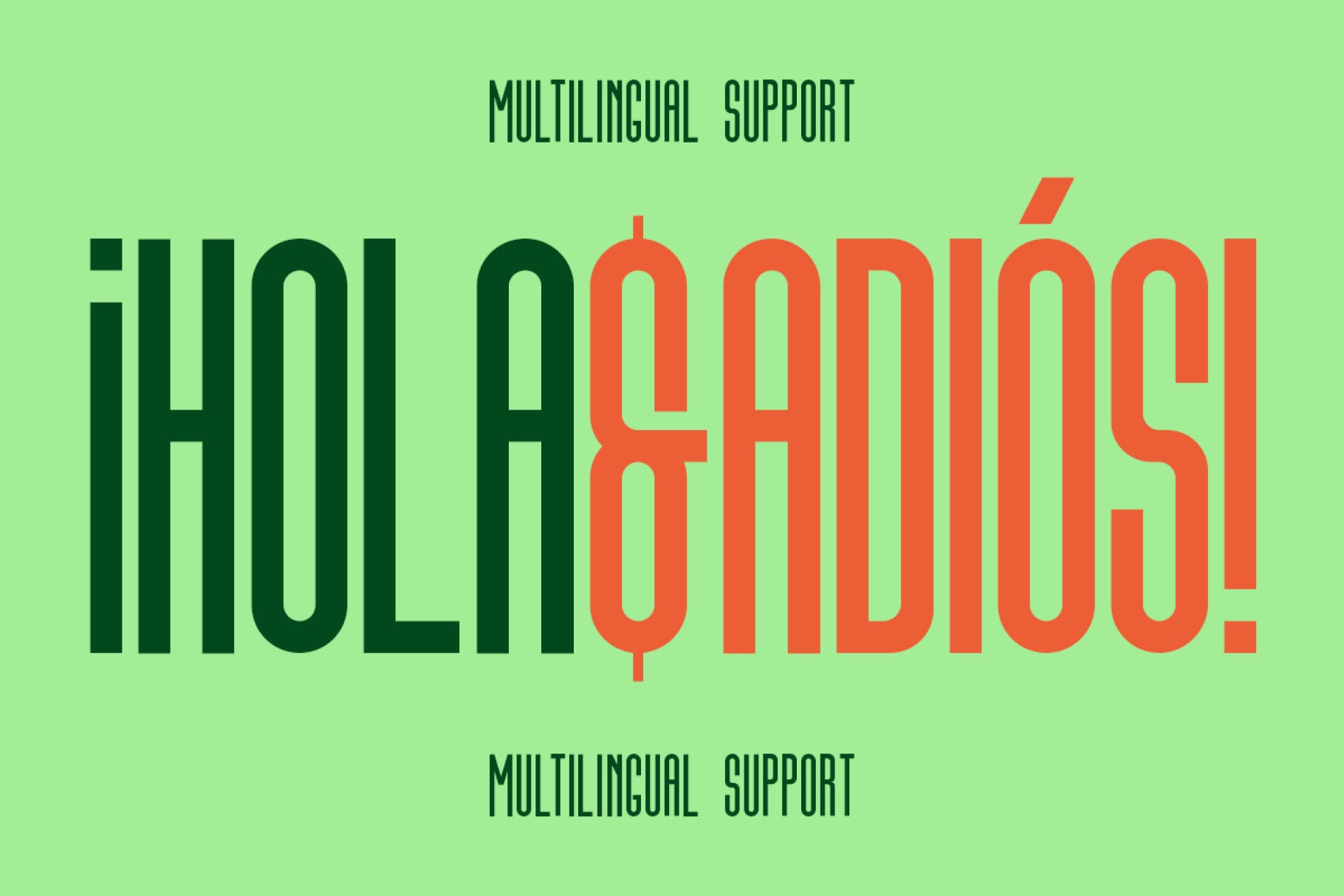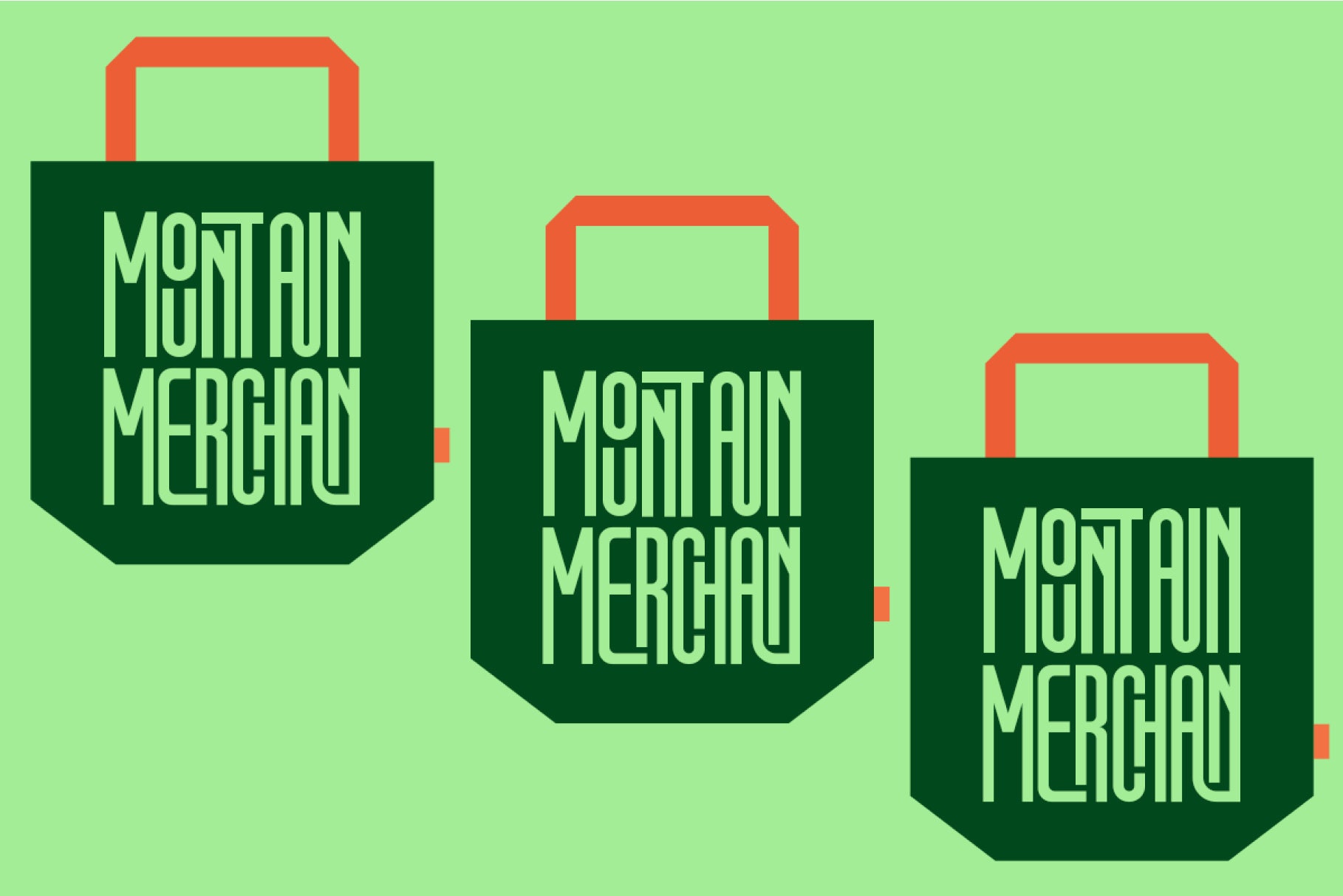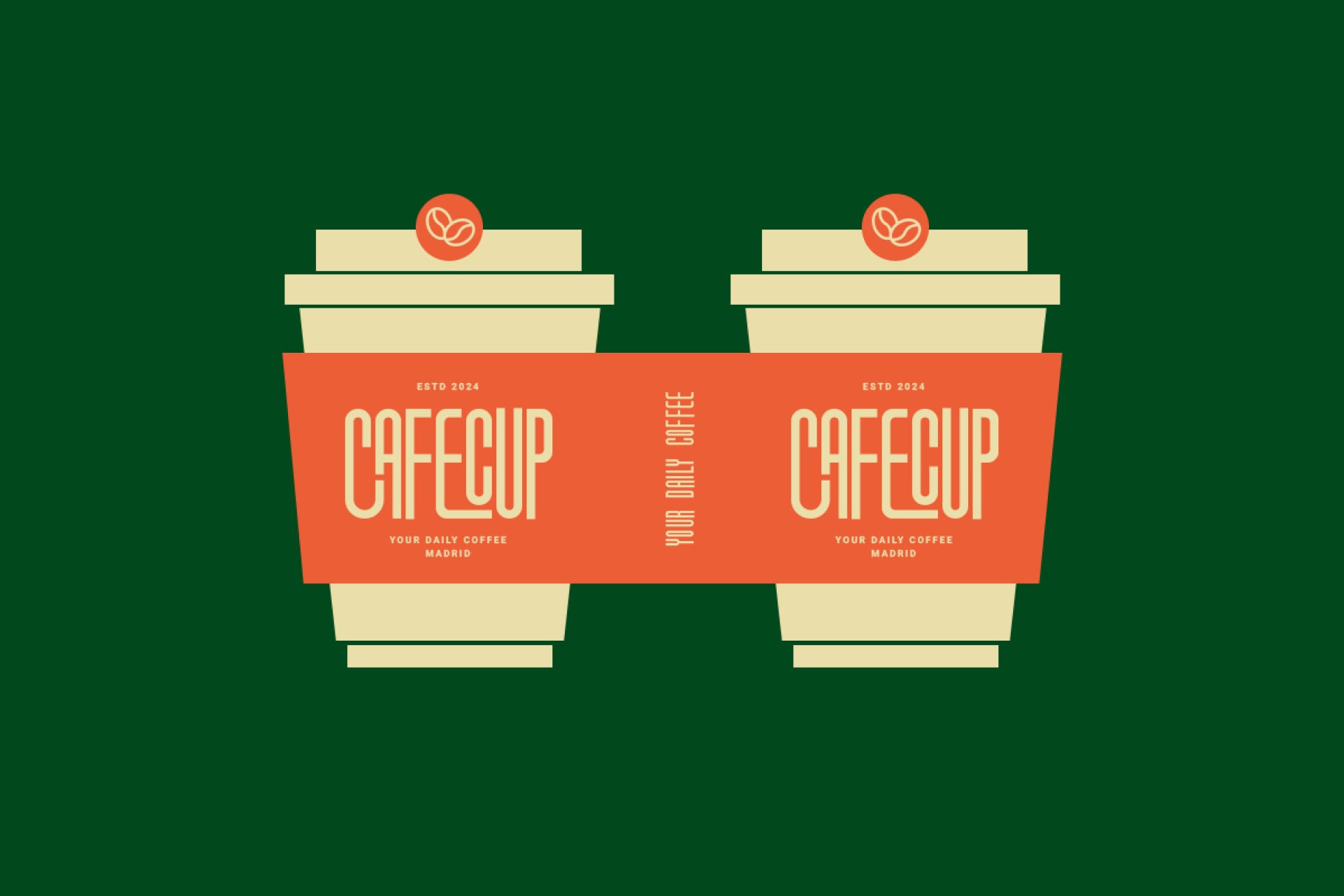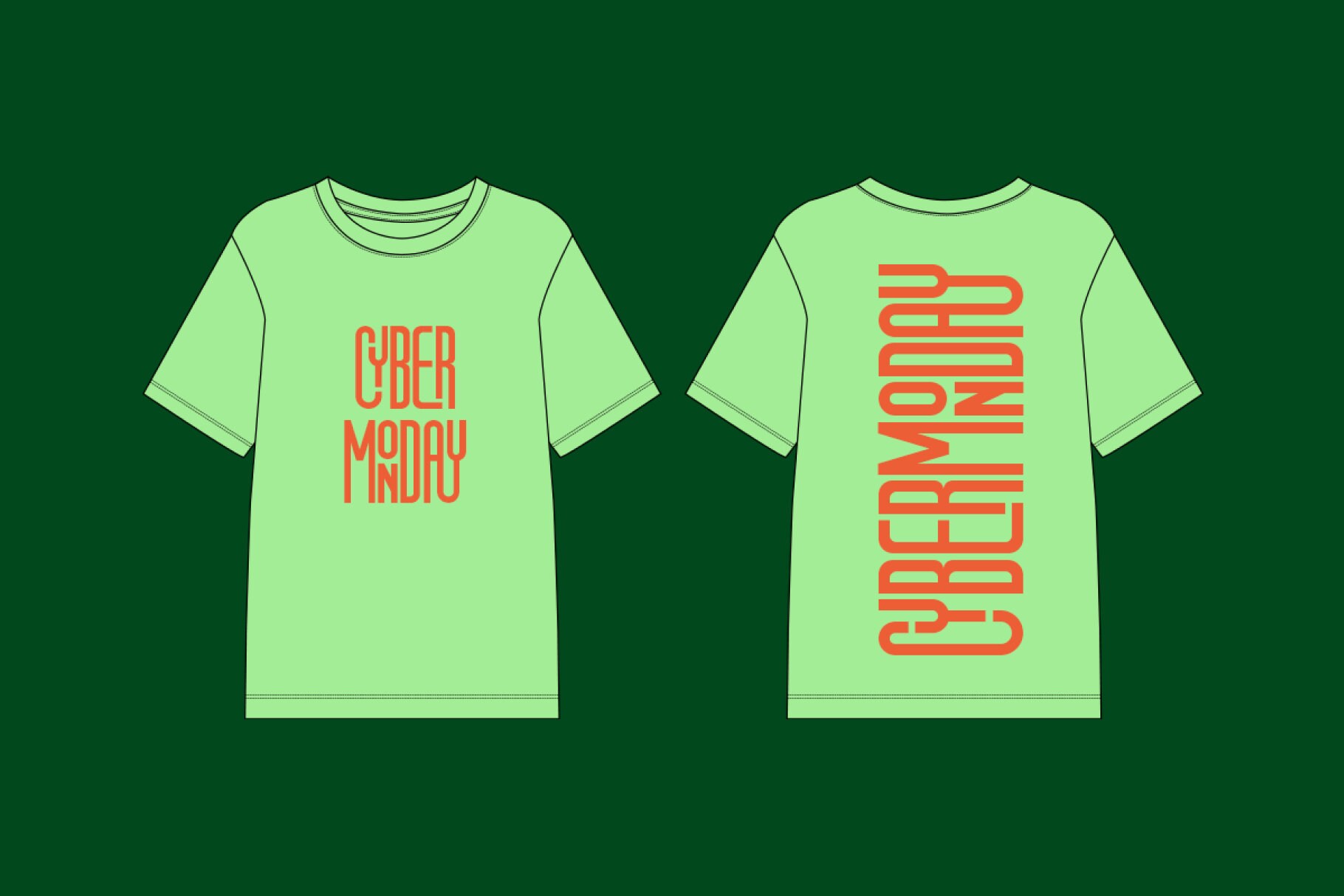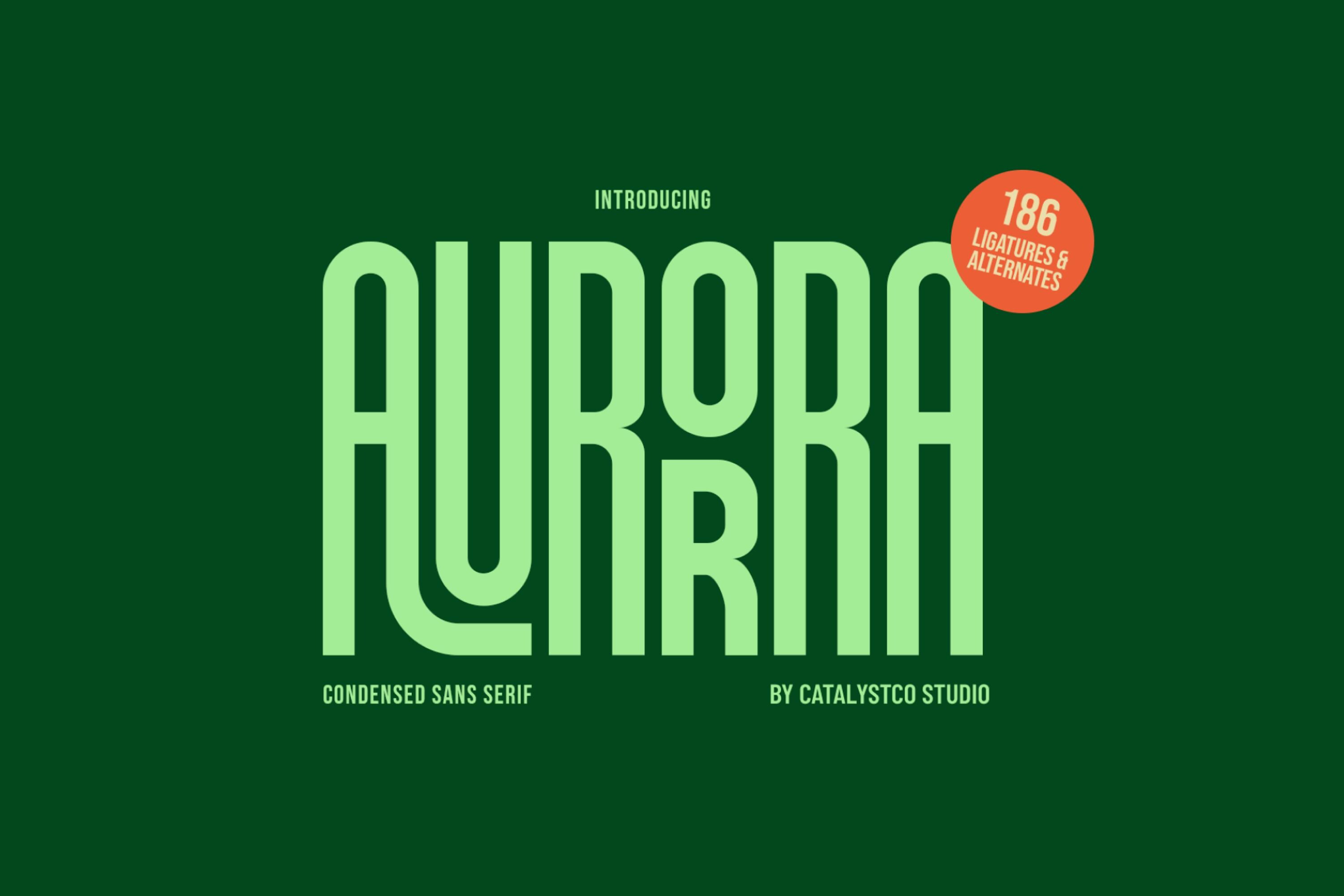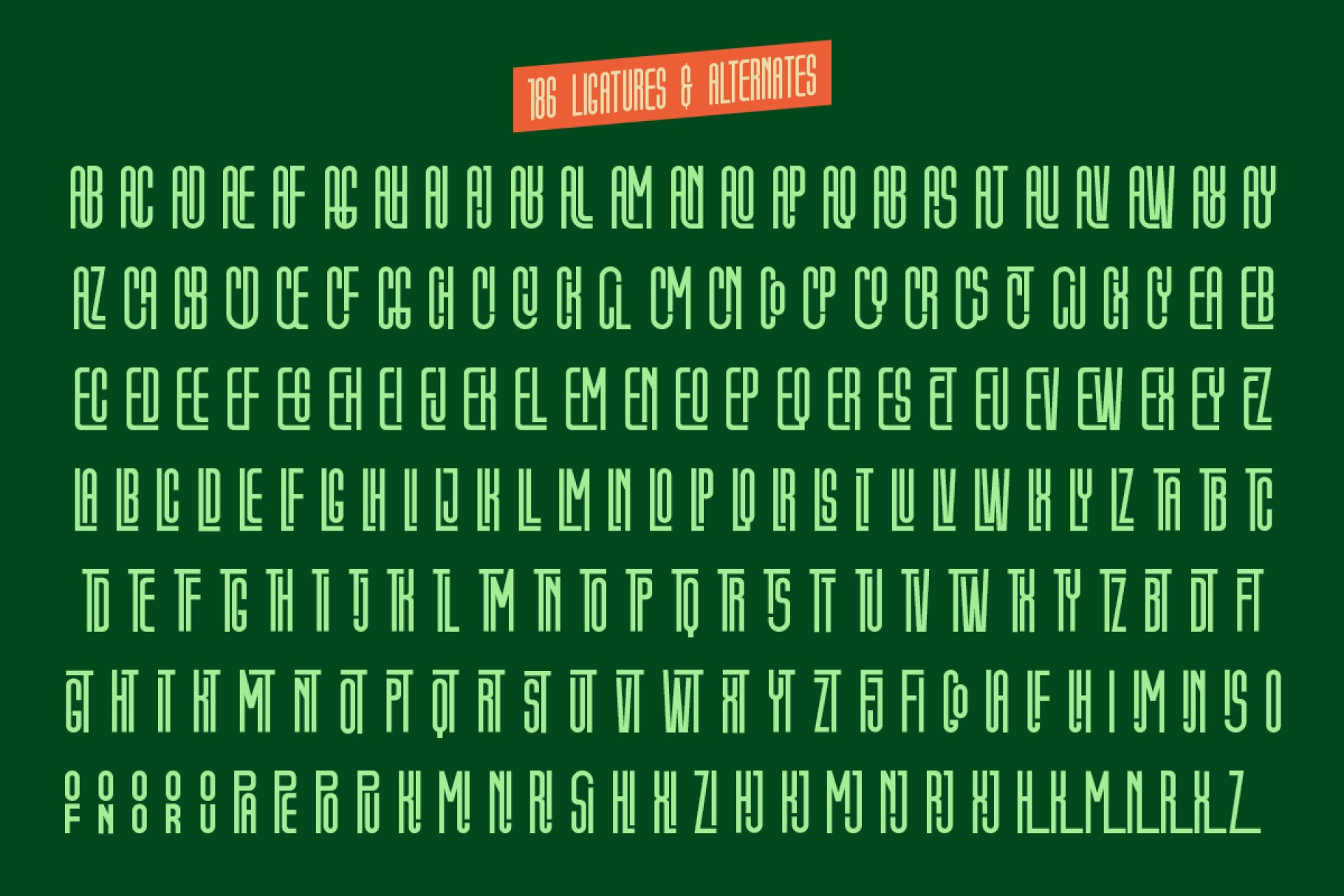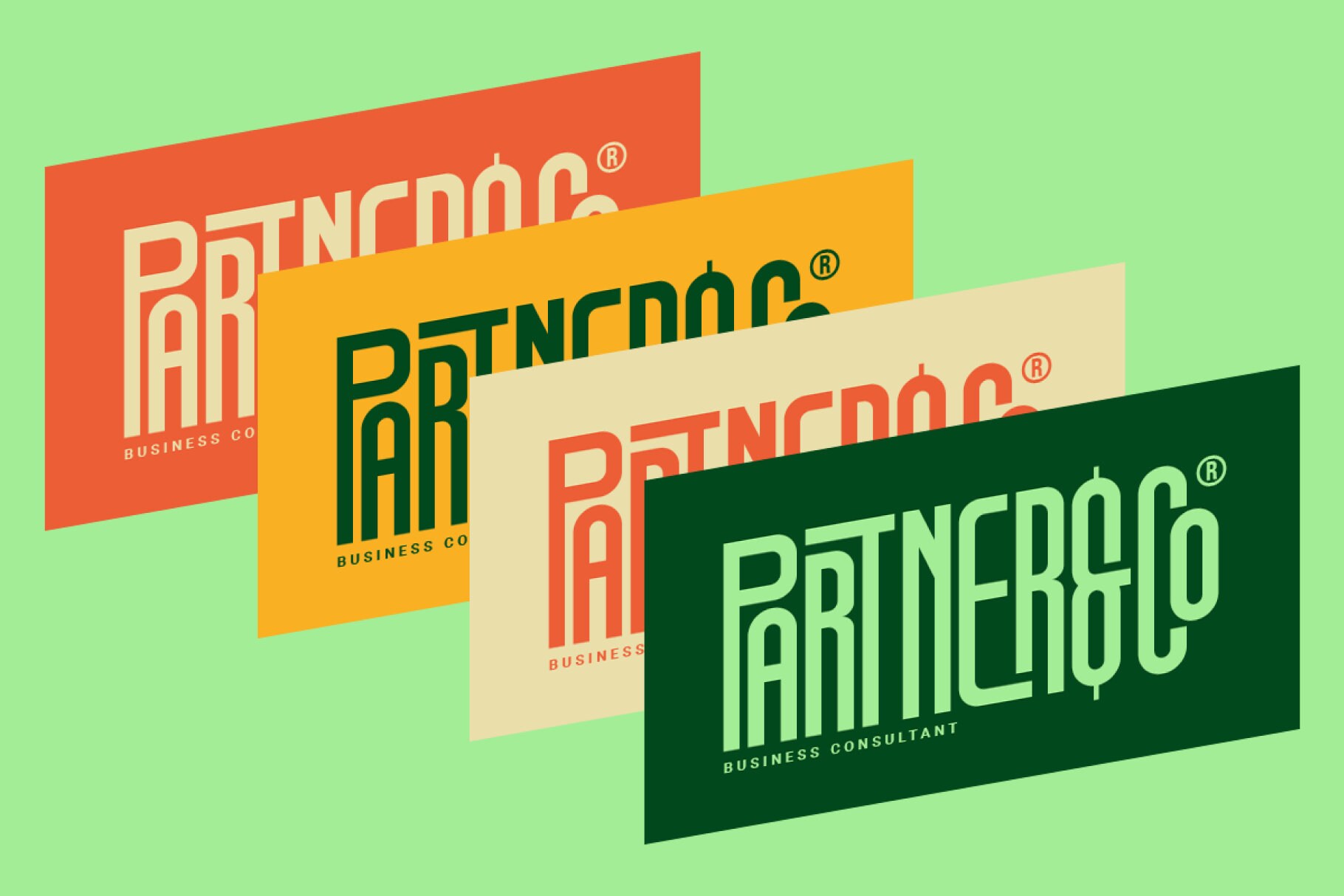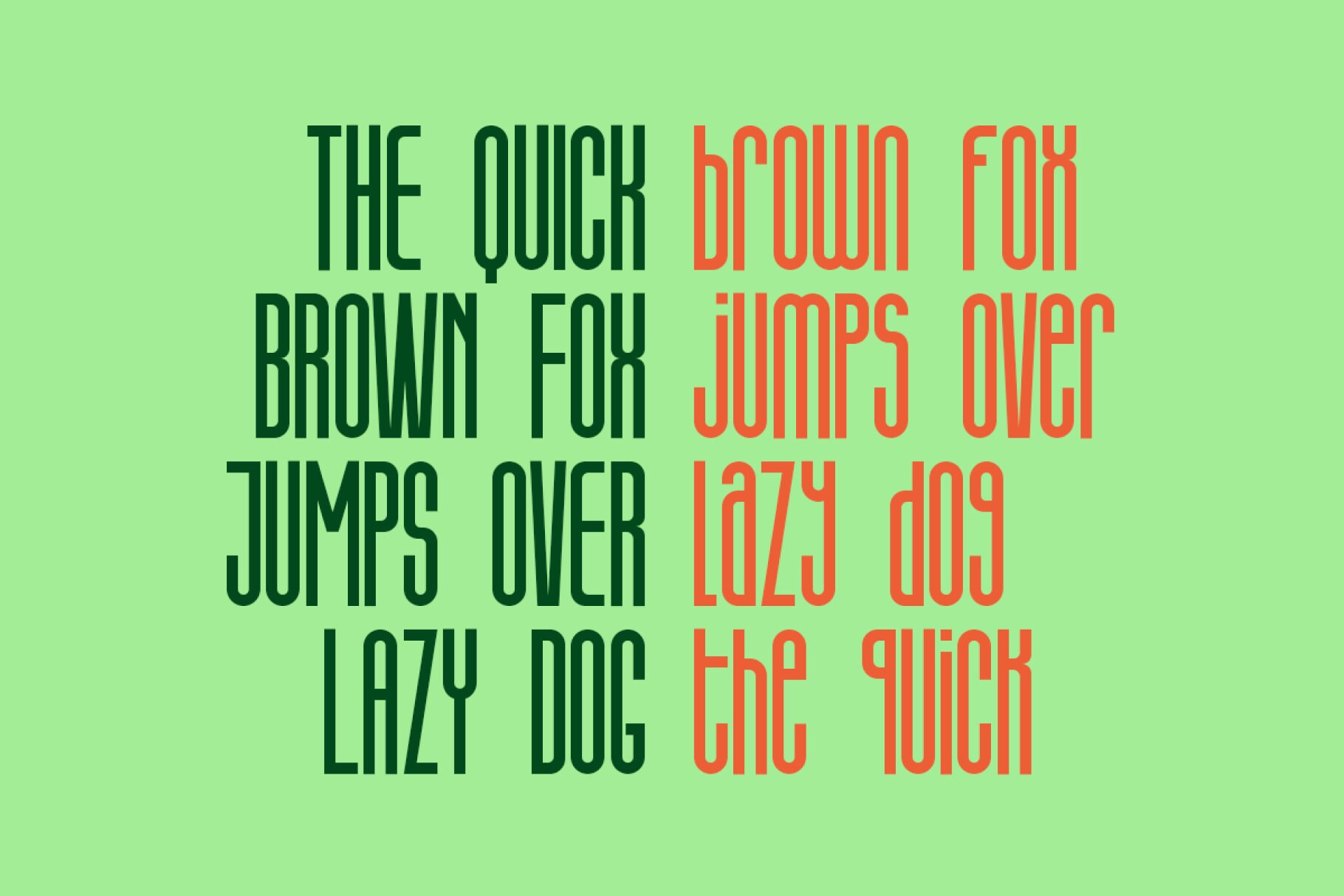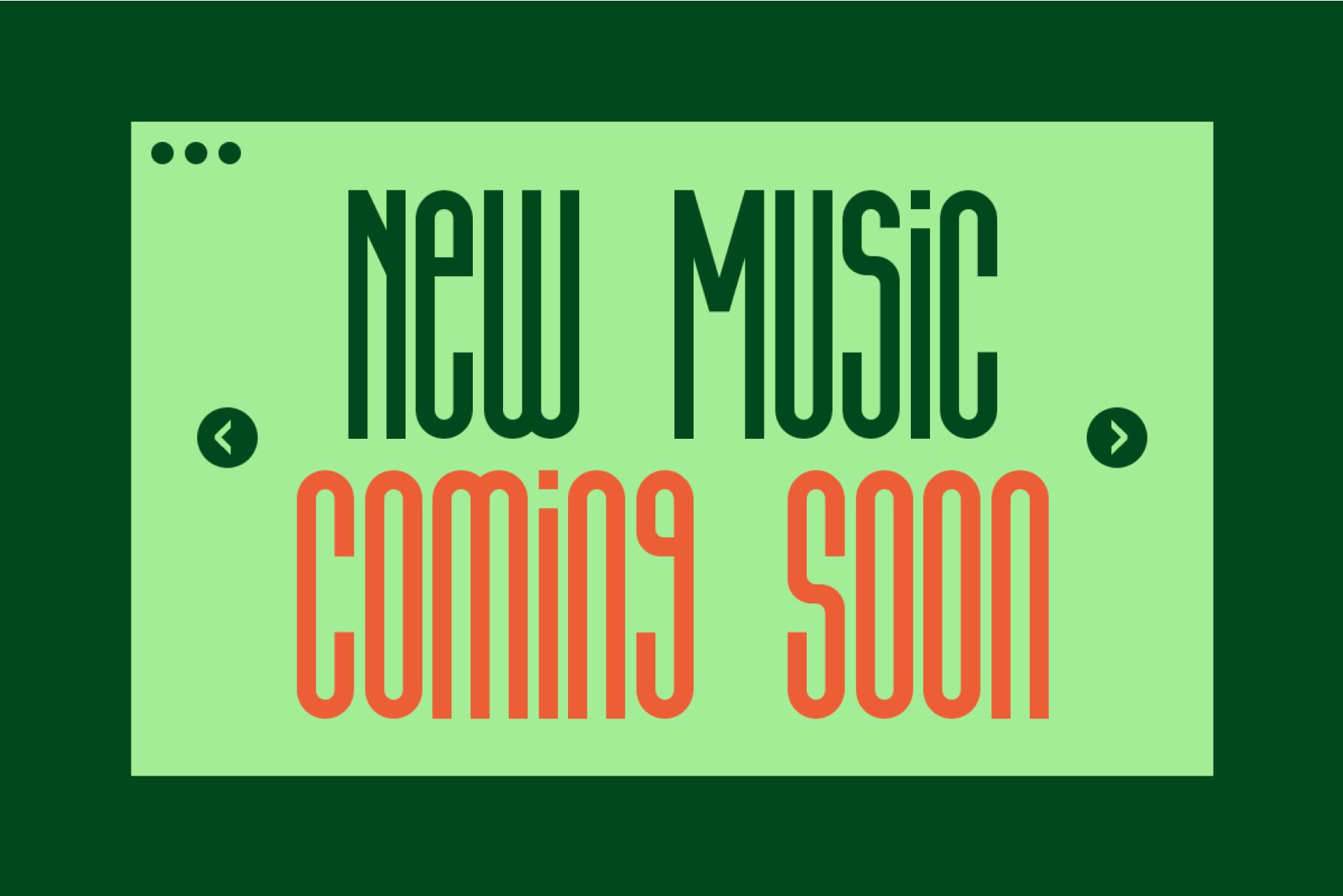
Aurora Digital Font | Modern Elegant Typeface for Branding, Logos and Luxury Design | Professional Font for Branding & Luxury Designs
Introducing our new "Aurora" Modern Font, boasting an Elegant Style, perfect for branding, logos, master heads, and myriad other applications.
✔️ Sleek & Modern Design – Perfect for luxury branding & digital projects
✔️ Sophisticated Typography – Elegant curves & refined letterforms
✔️ Versatile Usage – Great for logos, fashion branding, packaging & more
✔️ Complete Font Set – Includes uppercase, lowercase, numbers & punctuation
Features :
- Multilingual
- Uppercase alphabet A-Z
- Lowercase alphabet a-z
- Alternate Character
- Numbers 0-9
- Some punctuation